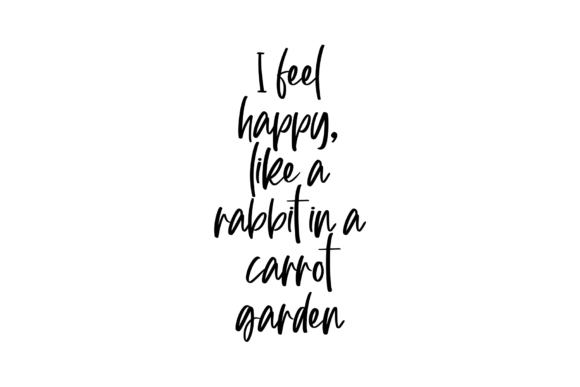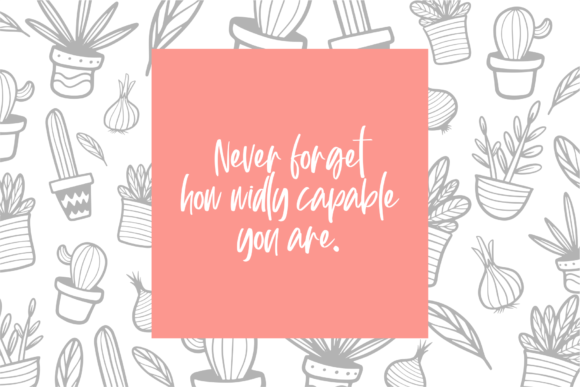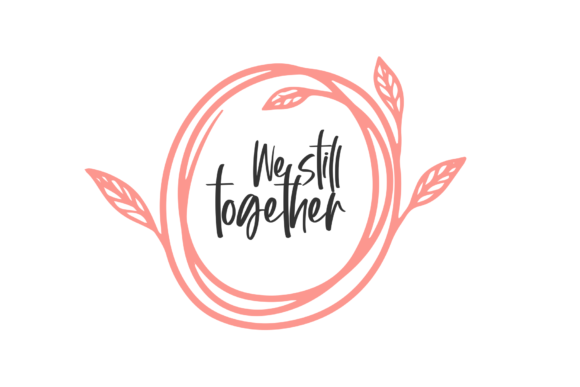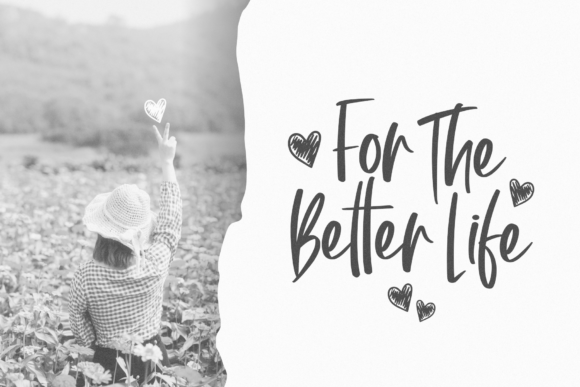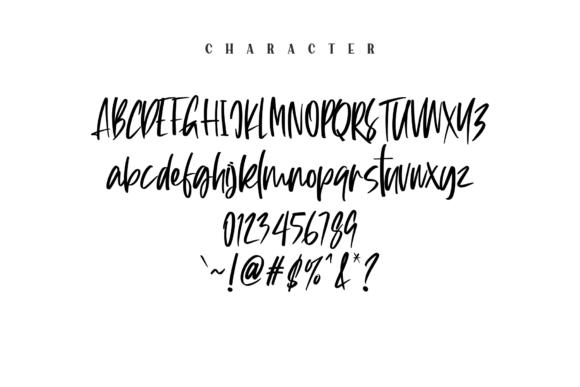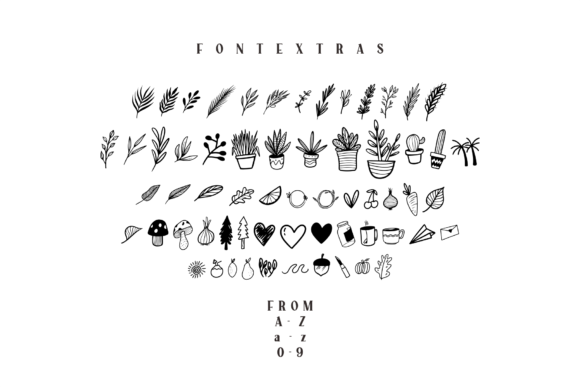
Gardenia Font: A Charming Script for Your Creative Projects
Are you a designer or crafter looking for a font that can add a touch of elegance and sophistication to your creative projects? Look no further than Gardenia Font, a light and charming script that is sure to capture your heart. With its incredibly authentic letters, Gardenia Font is the perfect choice for anyone who wants to add a personal and unique touch to their work.
The Authentic Approach of Gardenia Font
Gardenia Font is a script font that is designed to mimic the look and feel of handwritten letters. Its authentic approach is what sets it apart from other fonts, making it a standout choice for designers and crafters who want to add a personal touch to their projects. The font features incredibly authentic letters, with subtle variations in size, shape, and style that give it a natural and organic look.
One of the key features of Gardenia Font is its light and airy feel. The font is designed to be easy to read and understand, making it perfect for use in a variety of creative projects, from invitations and greeting cards to blog posts and social media graphics. Whether you’re looking to add a touch of elegance to your design or simply want to create a unique and eye-catching look, Gardenia Font is the perfect choice.
What Makes Gardenia Font So Special?
So, what makes Gardenia Font so special? Here are just a few reasons why designers and crafters are falling in love with this charming script:
- Authentic look and feel: Gardenia Font features incredibly authentic letters that are designed to mimic the look and feel of handwritten script.
- Light and airy feel: The font has a light and airy feel that makes it easy to read and understand.
- Unique and eye-catching: Gardenia Font is a unique and eye-catching choice that is sure to make your creative projects stand out.
- Versatile: The font is versatile and can be used in a variety of creative projects, from invitations and greeting cards to blog posts and social media graphics.
How to Use Gardenia Font in Your Creative Projects
Using Gardenia Font in your creative projects is easy. Here are a few tips to get you started:
- Pair it with other fonts: Gardenia Font pairs well with other fonts, such as sans-serif fonts and serif fonts. Experiment with different pairings to find the one that works best for your project.
- Use it for headings and titles: Gardenia Font is perfect for use in headings and titles, where its elegant and sophisticated look can really shine.
- Add it to your social media graphics: Use Gardenia Font to add a personal touch to your social media graphics, such as Instagram posts and Facebook graphics.
- Use it for invitations and greeting cards: Gardenia Font is a beautiful choice for invitations and greeting cards, where its elegant and sophisticated look can really make an impact.
In conclusion, Gardenia Font is a charming script that is sure to capture your heart. With its incredibly authentic letters and light and airy feel, it’s the perfect choice for designers and crafters who want to add a personal and unique touch to their creative projects. Whether you’re looking to create a beautiful invitation, a stunning social media graphic, or a unique blog post, Gardenia Font is the perfect choice. So why not fall in love with Gardenia Font today and see the difference it can make in your creative projects?